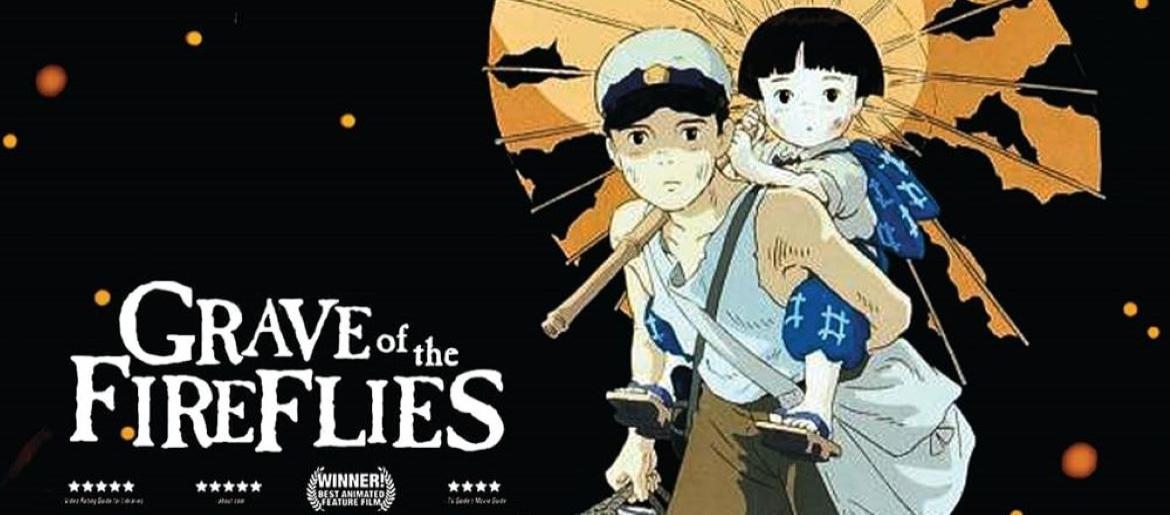
Grave of the Fireflies Font
The Grave of the Fireflies font captures the fragile beauty and haunting sorrow of Isao Takahata’s animated masterpiece. Just like the film tells a story of survival, loss, and the resilience of the human spirit during wartime, the Grave of the Fireflies font conveys subtlety, elegance, and emotional depth.
The title of the film features a soft, understated serif style Caslon Antique font that feels delicate yet enduring—mirroring the vulnerability of the characters and the quiet strength they exhibit. Designers often choose the Grave of the Fireflies font for projects that aim to evoke emotion, nostalgia, or poignancy, whether it’s in book covers, illustrations, or heartfelt editorial designs.
The Grave of the Fireflies font shows that typography can be as expressive as a story on screen. With its quiet, graceful letters, it mirrors the film’s emotional depth, leaving a lasting impression long after the story ends.